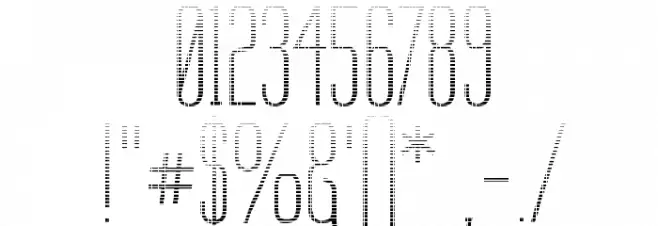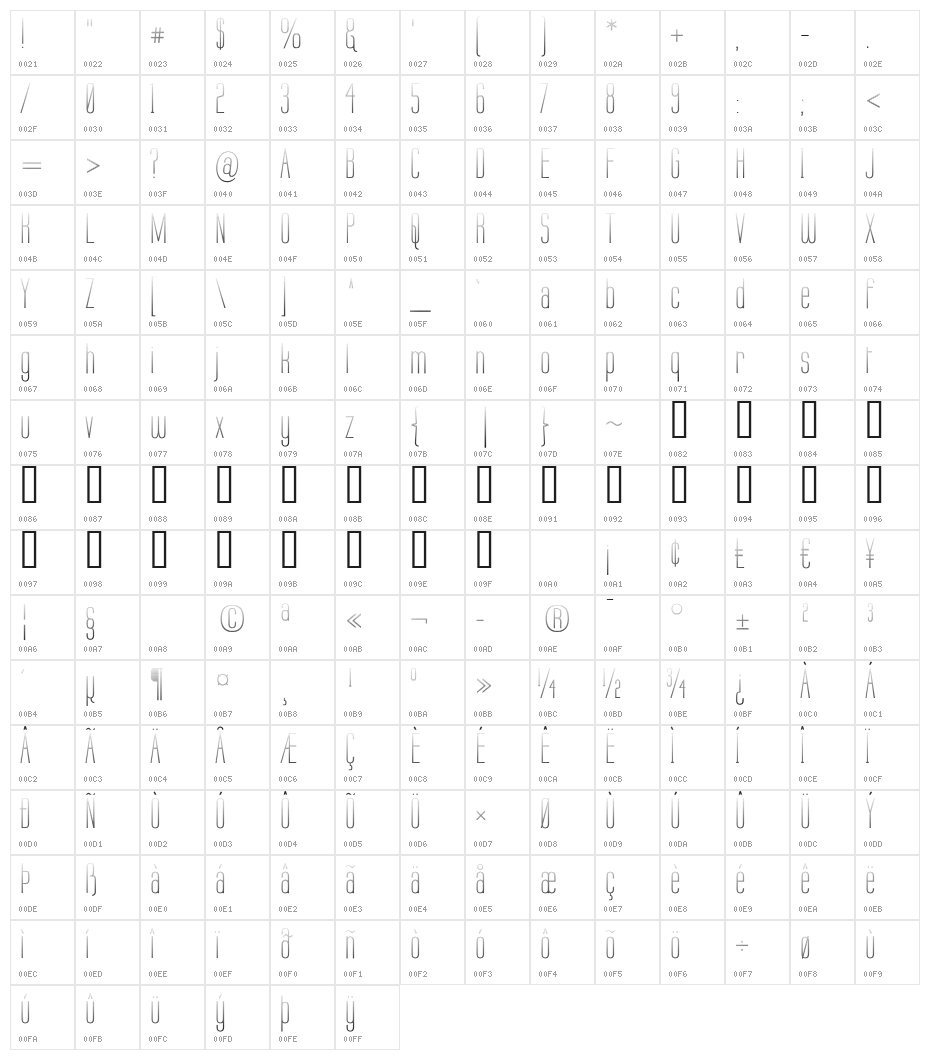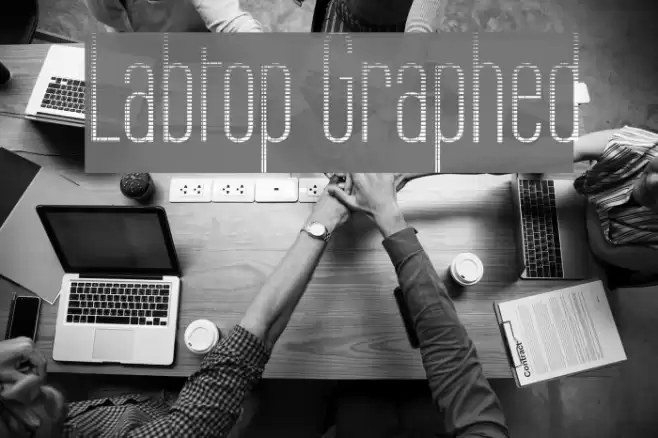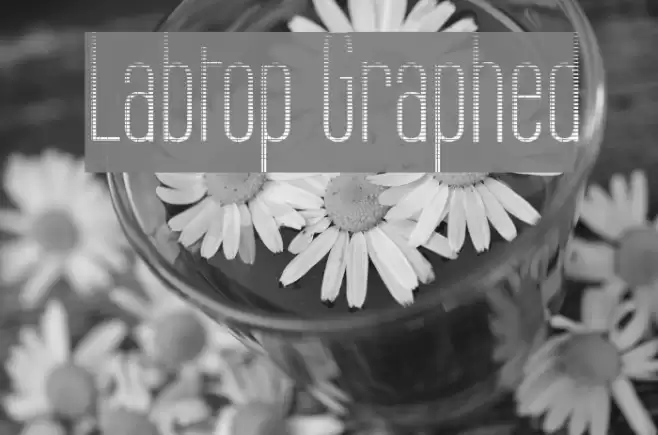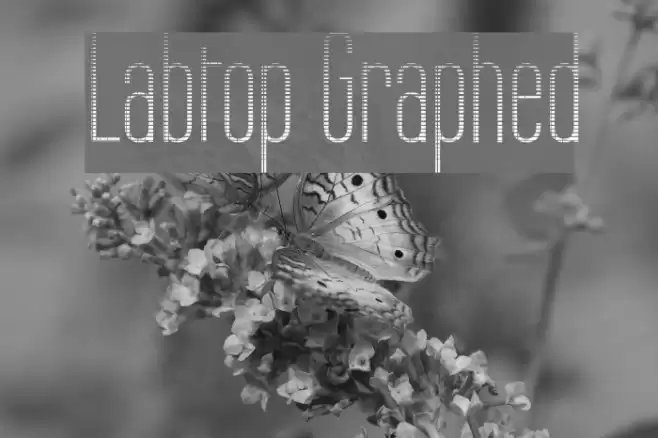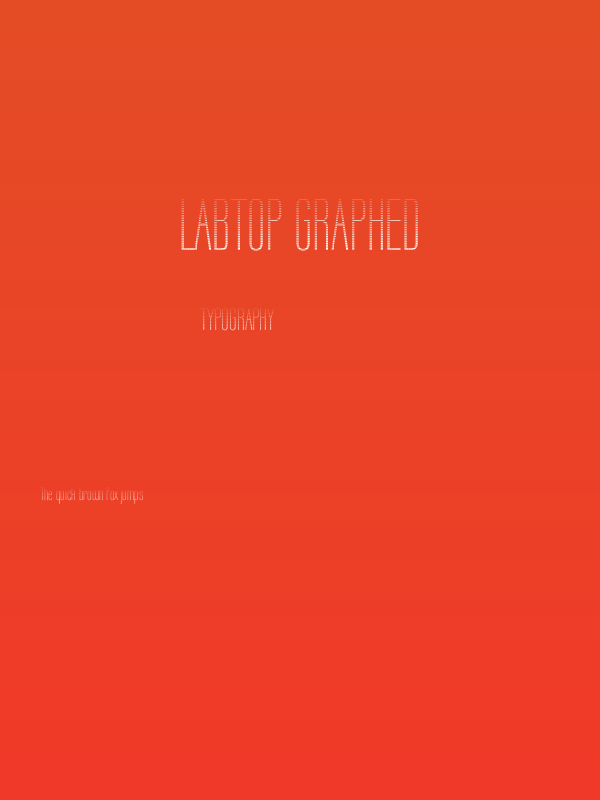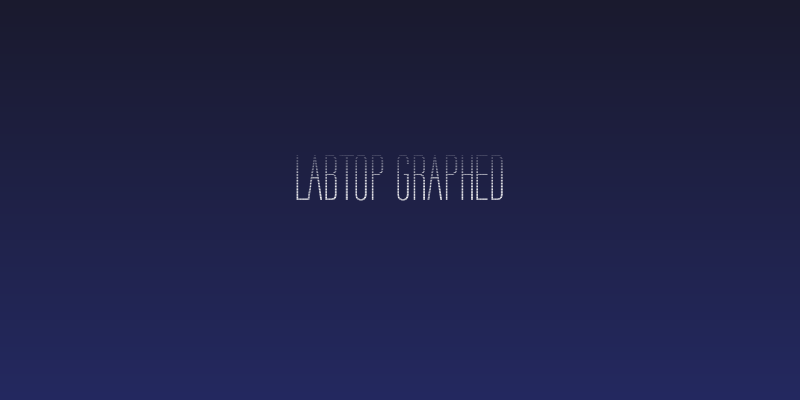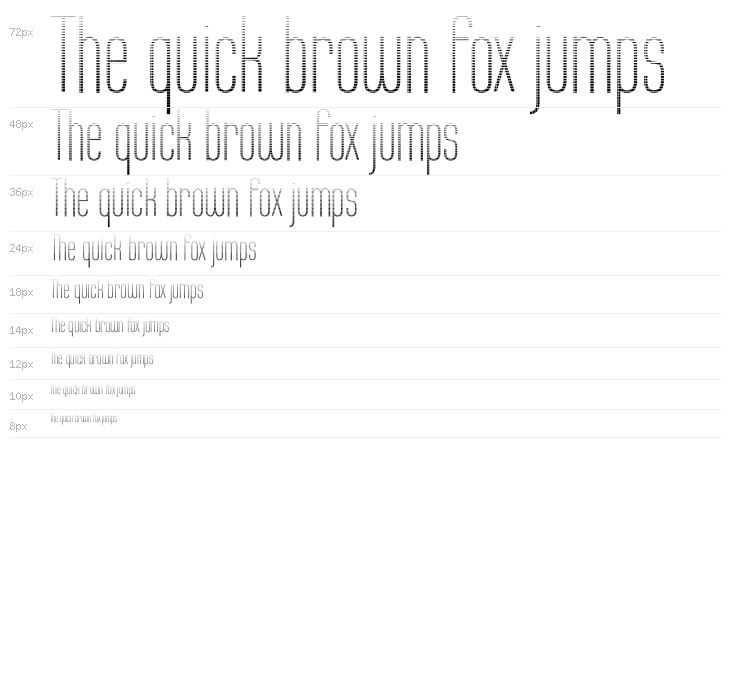
Labtop Graphed Font
Labtop Graphed Description
This font features a modern, digital aesthetic with a distinctive dotted pattern that creates a sense of movement and texture. The characters are tall and narrow, giving an elongated appearance that is both sleek and stylish. The uppercase letters maintain a consistent height, while the lowercase letters are slightly shorter, providing a balanced look. Numbers and special characters follow the same design principles, ensuring uniformity across all elements. The font's unique style makes it stand out, ideal for projects that require a futuristic or tech-inspired theme.